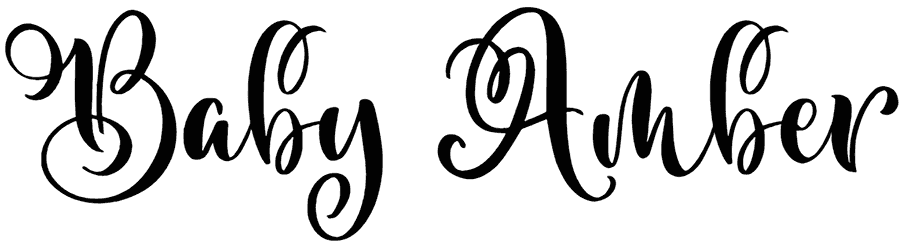
Baby Amber Font
Baby Amber is the best addition to your font collection and will leave you giddy with delight. This calligraphy font possesses the delicate finesse of an antique piece yet is modern enough to dazzle your readers. Whether you’re making wedding invitations, greeting cards, or graphics for social media, your designs will be full of love and warmth.
BABY AMBER